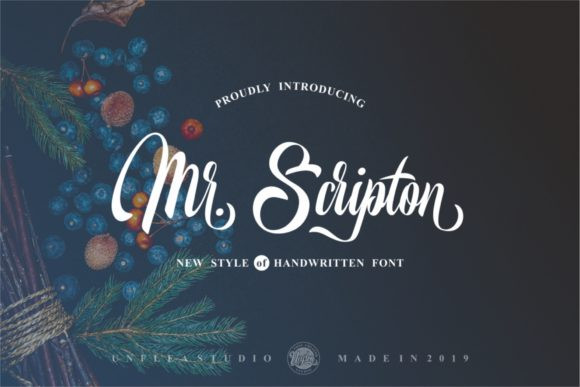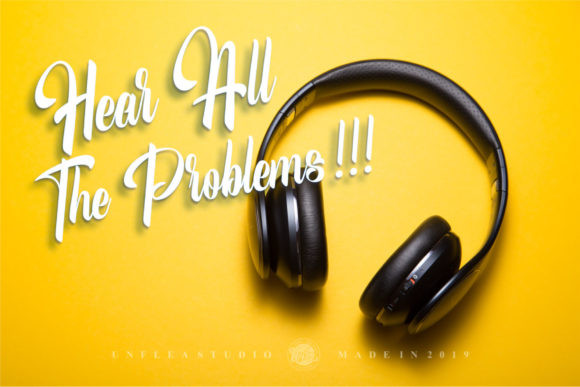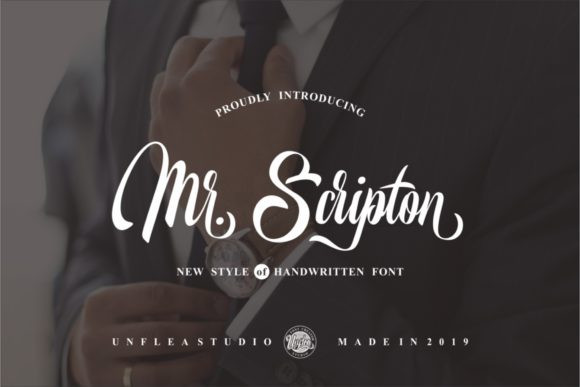
Mr. Scripton Font
Mr. Scripton is modern calligraphy font with a handmade touch. Use it for any crafting project that requires a personalized appearance!